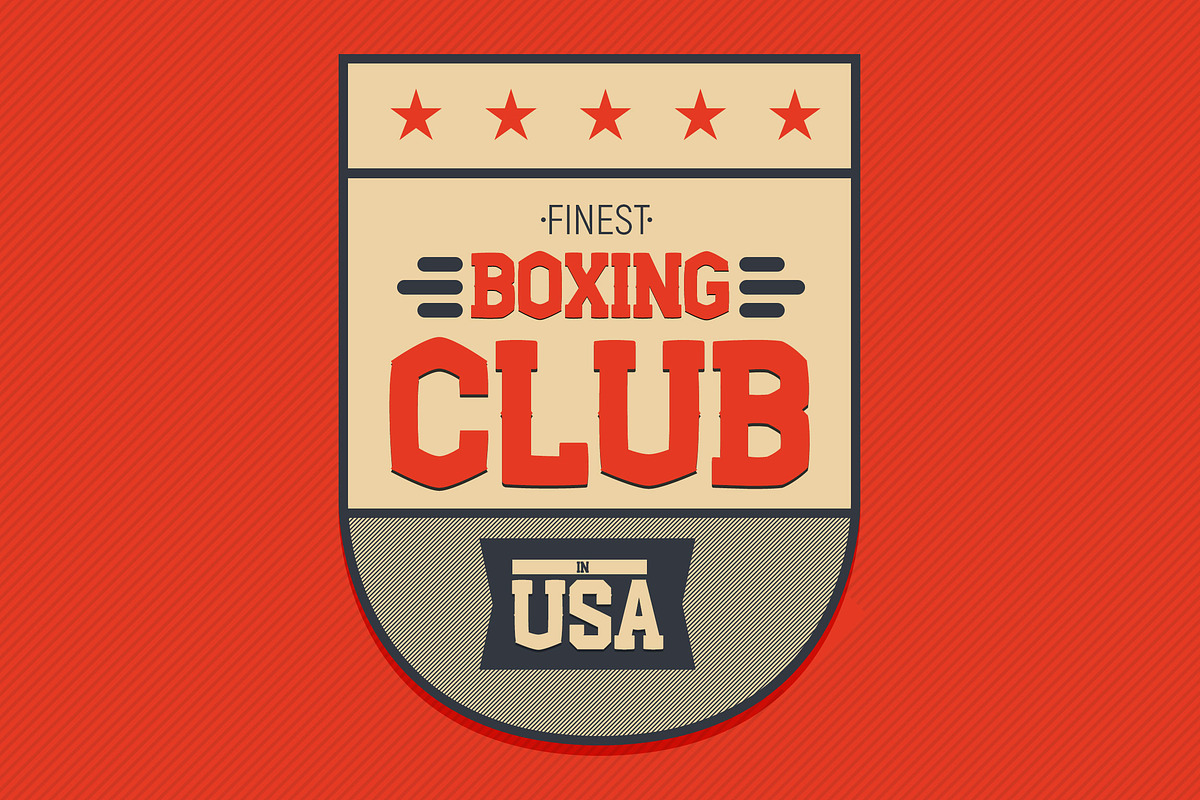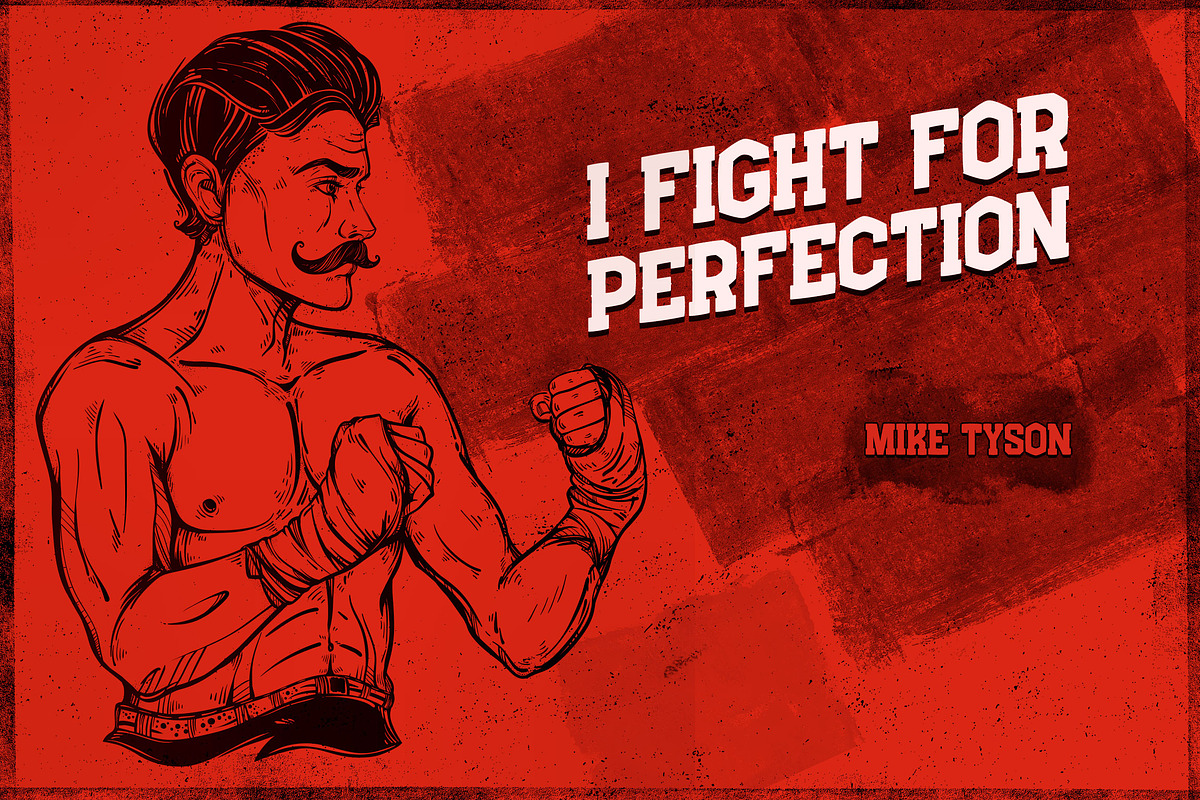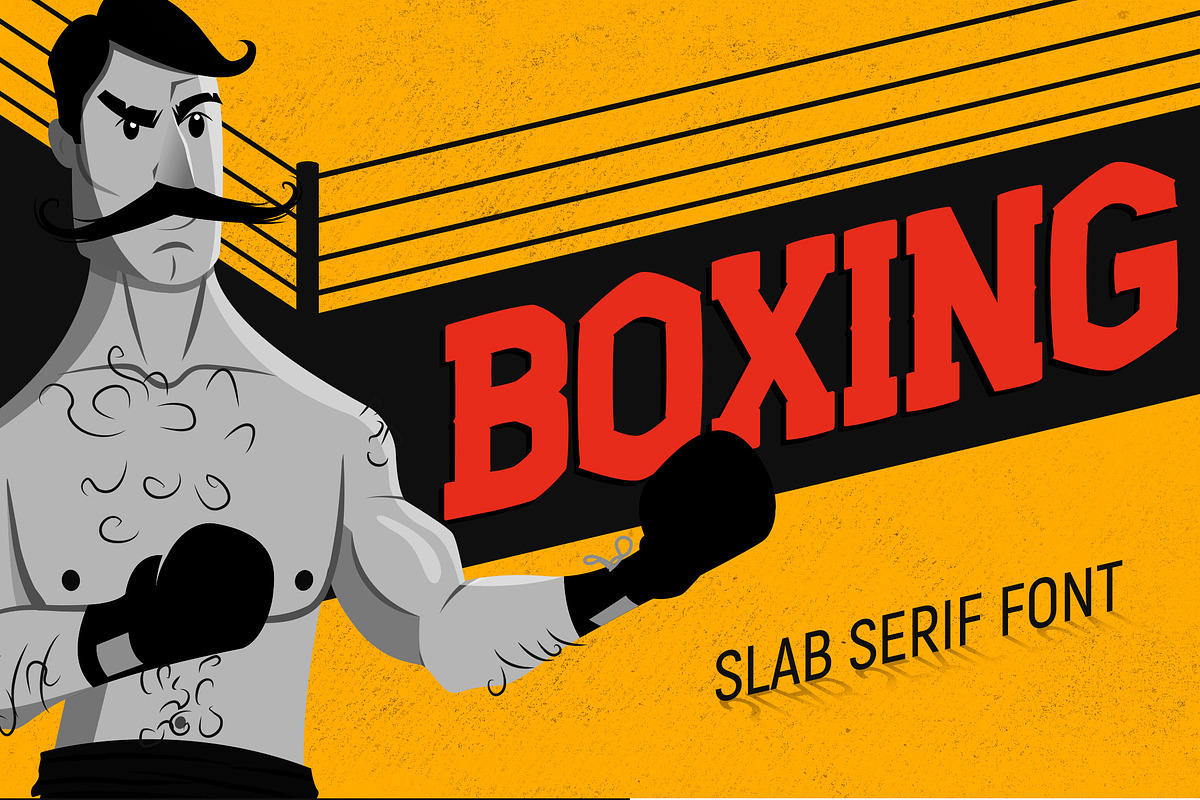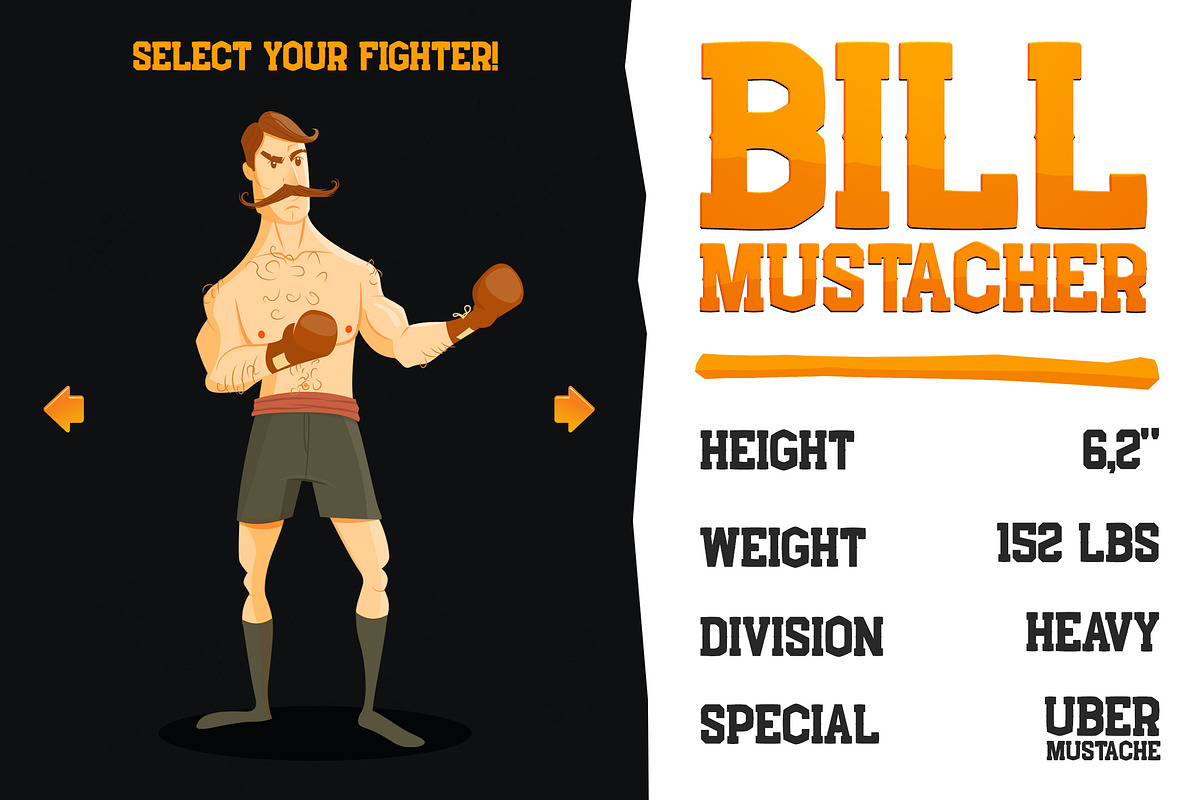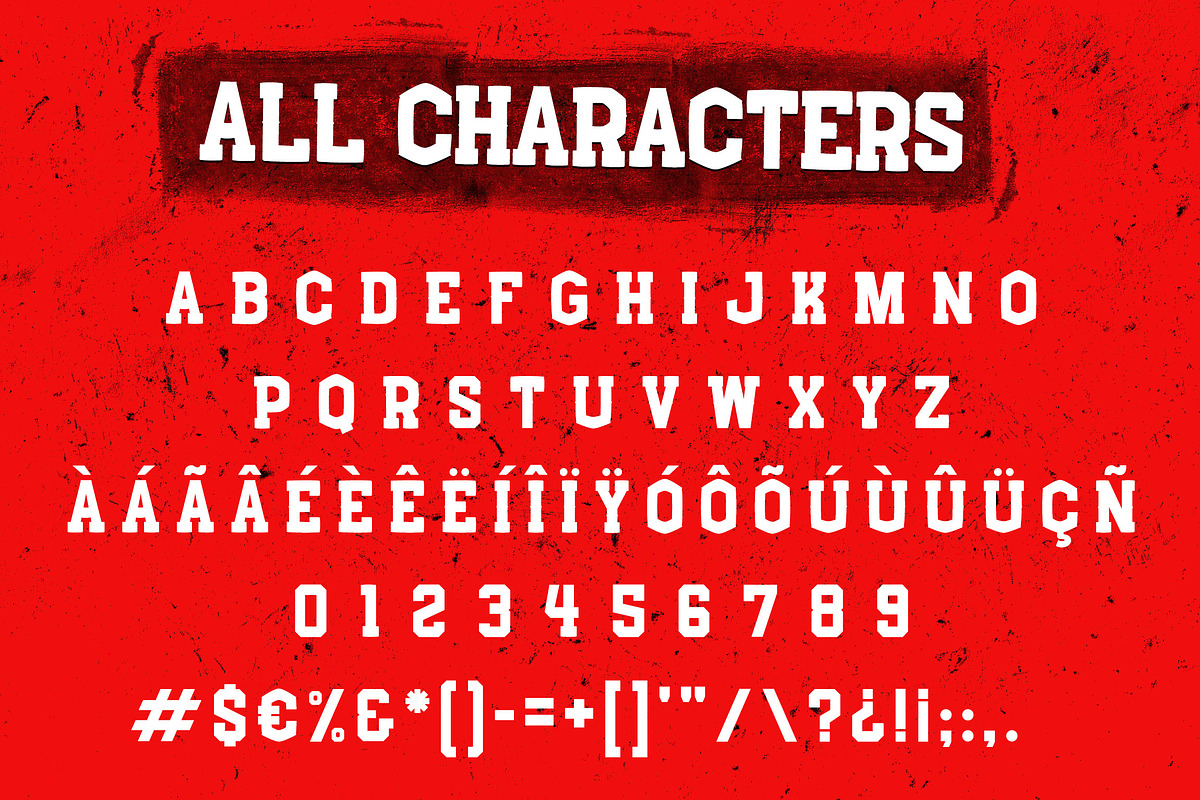
Boxing - Slab Serif Font
Boxing! A fun slab serif font ready to fight! Inspired by the sport and gaming this font has a bold look for your designs.
Language Support: English, Portuguese and Spanish.